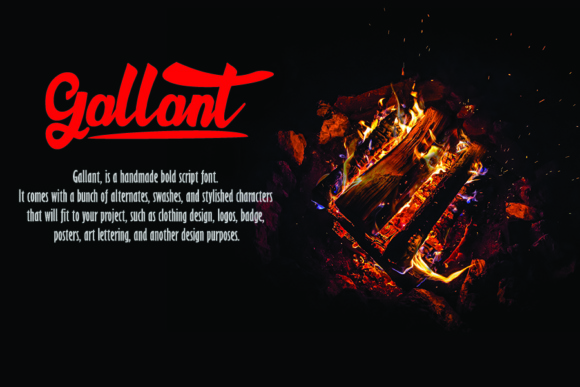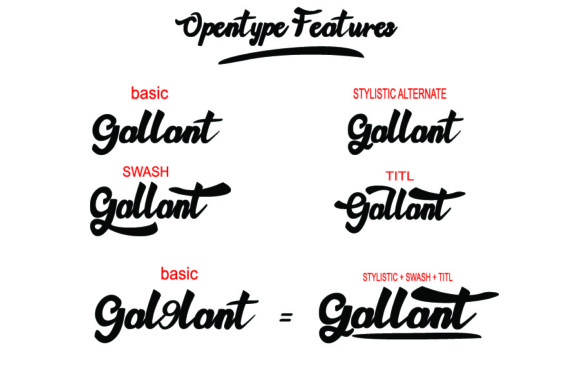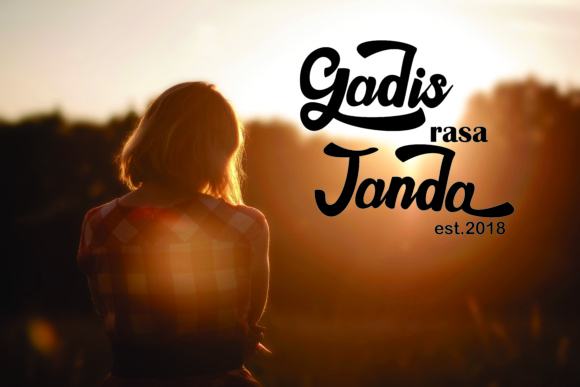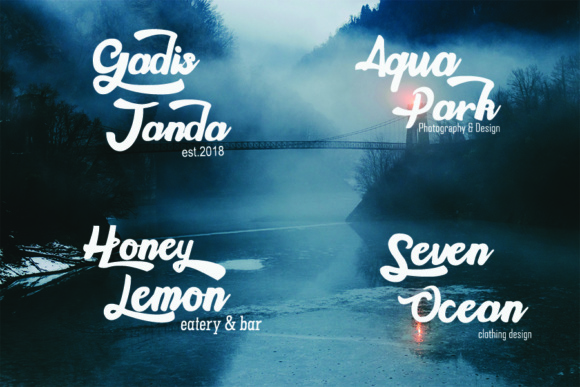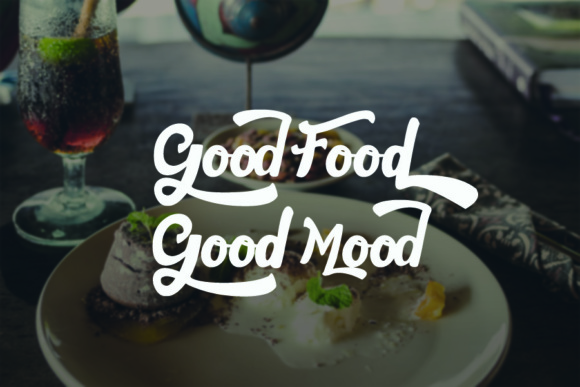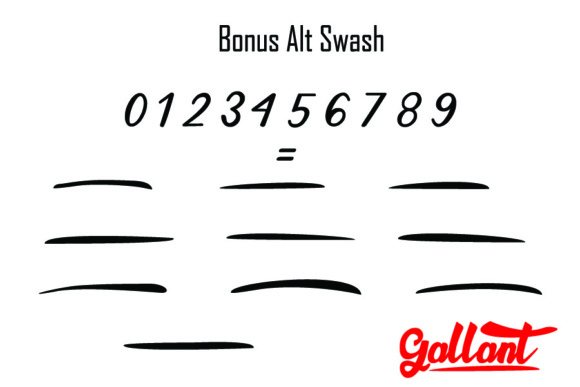
The Designer’s Dream: Gallant Font
Have you ever been in the middle of a design project, and suddenly, you’re stuck on finding the perfect font? I recall a recent experience where I was working on a branding project for a luxury boutique, and I just couldn’t find a font that screamed elegance and sophistication. That’s when I stumbled upon the Gallant font, and my design woes disappeared instantly! 😊
A Stunning, Handmade Headline Font
Gallant is a breathtaking, handmade headline font that adds a bold, head-turning look to any design. This font boasts stylish characters and stunning swashes, allowing you to create nostalgic, painterly typographic designs that exude luxury and refinement.
- ✨ Elegant and sophisticated: Gallant font has a unique, high-end feel that’s perfect for luxury brands, wedding designs, and high-end product packaging.
- ✅ Highly versatile: This font comes with multiple stylistic alternates, swashes, and glyphs, making it suitable for a wide range of design projects.
While Gallant font is an excellent choice for many design projects, there are a few minor quirks to consider:
- ⚠️ Limited use for body text: Due to its bold and ornate nature, Gallant font might not be the best choice for body text or long-form content.
- 🤔 Requires some experimentation: To get the most out of Gallant font, you may need to experiment with different stylistic alternates, swashes, and glyphs to achieve the desired look.
Gallant font comes with a range of OpenType features, glyphs, and stylistic alternates that can help you create unique and stunning designs. Here are a few tips on how to make the most of these features:
The Designer Inspiration Behind Gallant Font
Gallant font was inspired by the works of 18th-century calligraphers, who were known for their elegant and sophisticated lettering styles. The font’s creator aimed to capture the essence of these classic designs and bring them into the modern era. The result is a font that’s both timeless and trendy, perfect for designers who want to add a touch of luxury to their work.
Q: What type of designs is Gallant font best suited for?
A: Gallant font is perfect for luxury brands, wedding designs, high-end product packaging, and any project that requires a touch of elegance and sophistication.
Q: Can I use Gallant font for body text?
A: While Gallant font is an excellent choice for headlines and titles, it might not be the best choice for body text or long-form content. Its bold and ornate nature may make it difficult to read in large blocks.